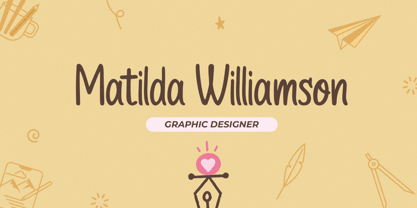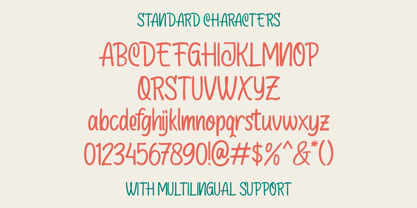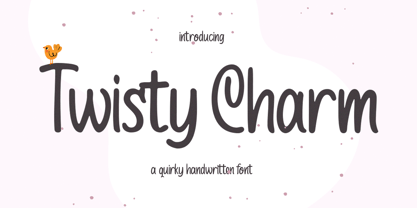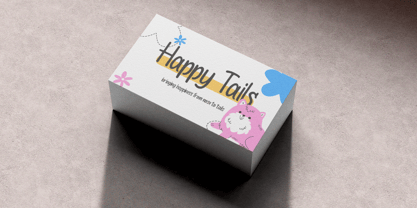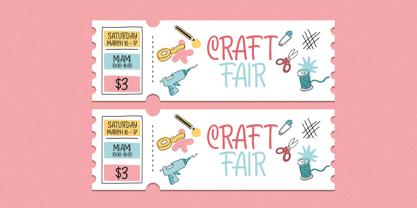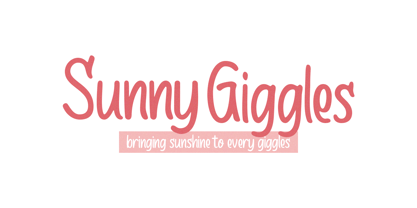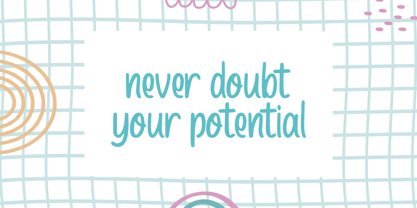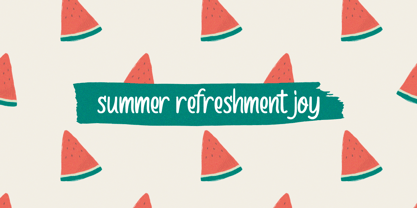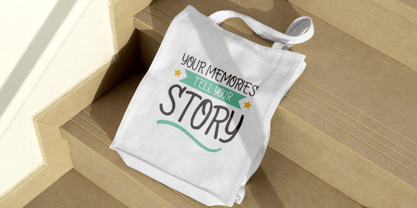
Twisty Charm
por Letterhend
A família de fontes Twisty Charm foi desenhada por Hendry Juanda e publicada pela Letterhend. Twisty Charm contém 1 estilos.
Introducing, Twisty Charm - a cute hand writing with casual looks. This type of font perfectly made to be applied especially in logo, and the other various formal forms such as invitations, labels, logos, magazines, books, greeting / wedding cards, packaging, fashion, make up, stationery, novels, labels or any type of advertising purpose.
Features :
• Uppercase & lowercase
• Numbers and punctuation
• Alternates & Ligatures
• Multilingual Support
• PUA encoded
Designers: Hendry Juanda
Publicador: Letterhend
Fundidoras: Letterhend
Proprietário do design: Letterhend